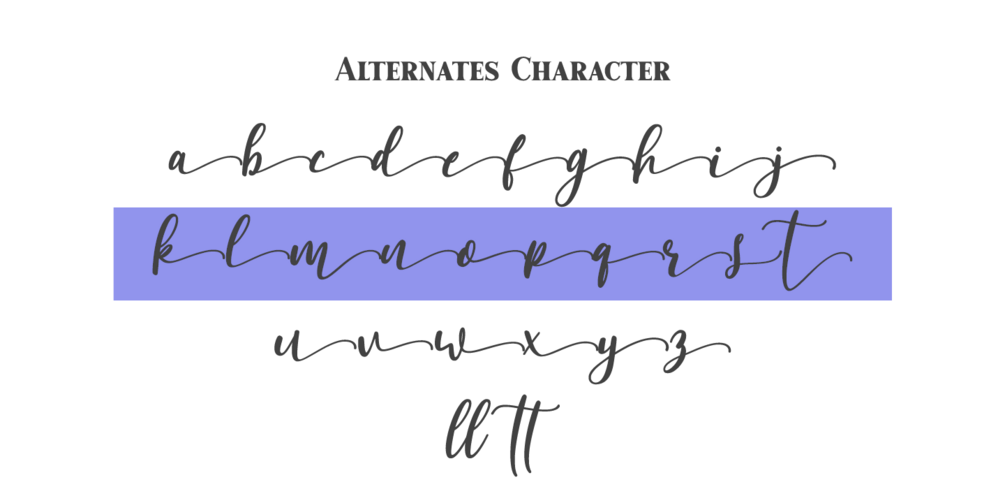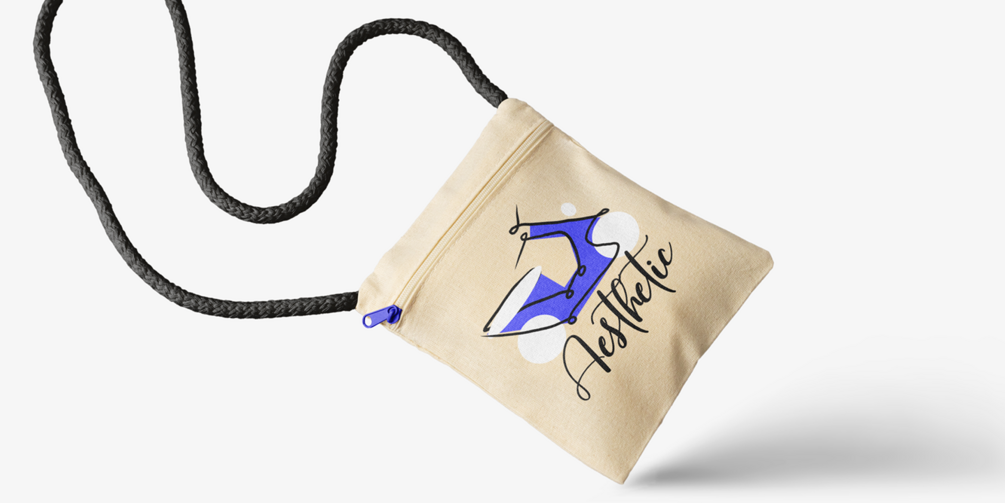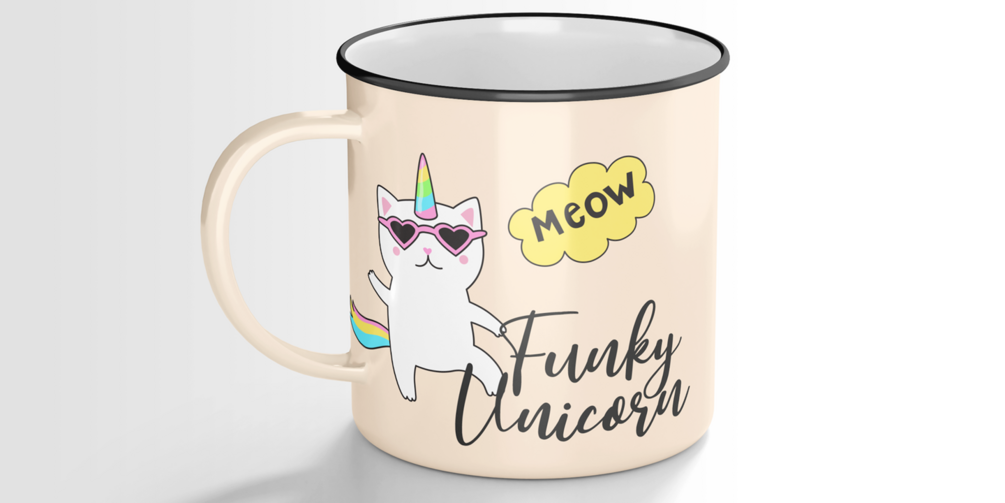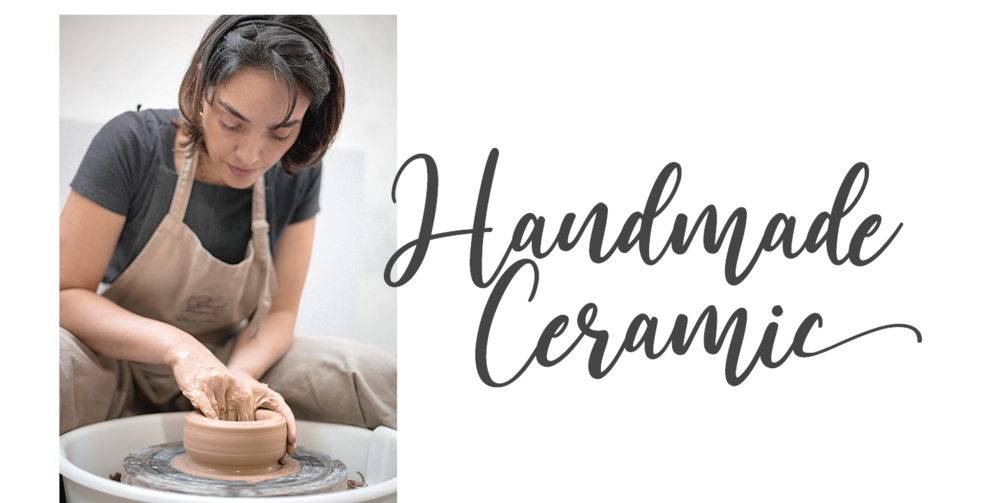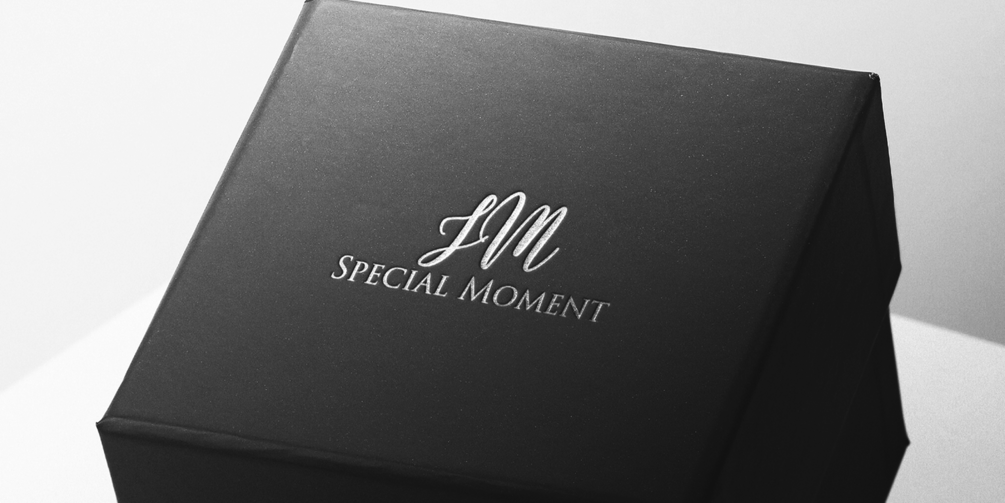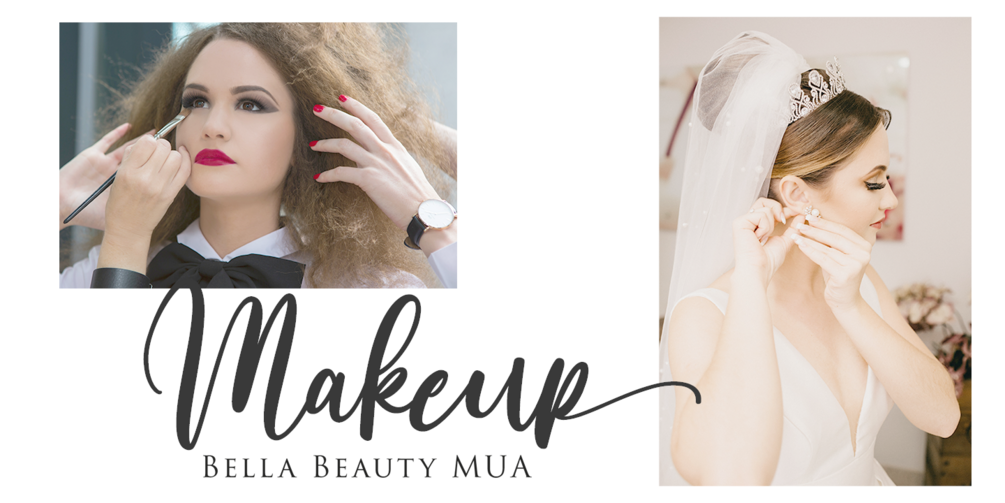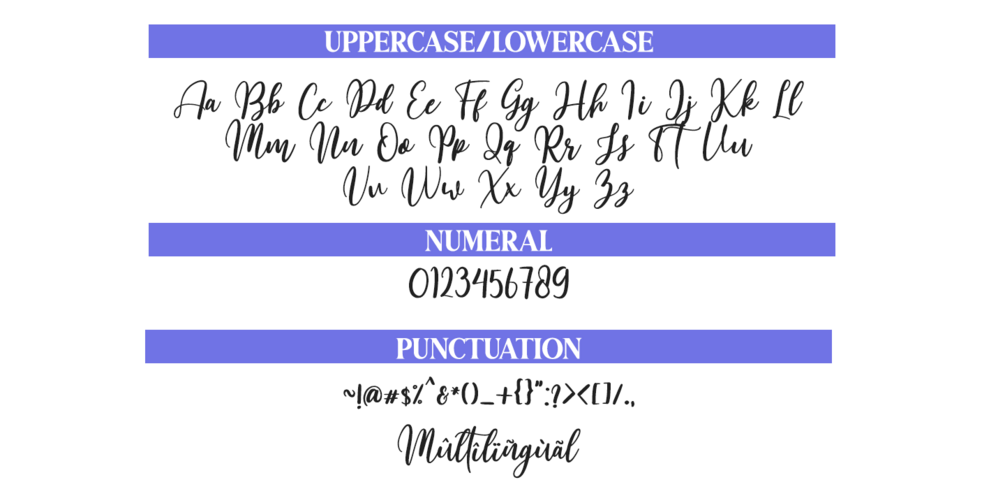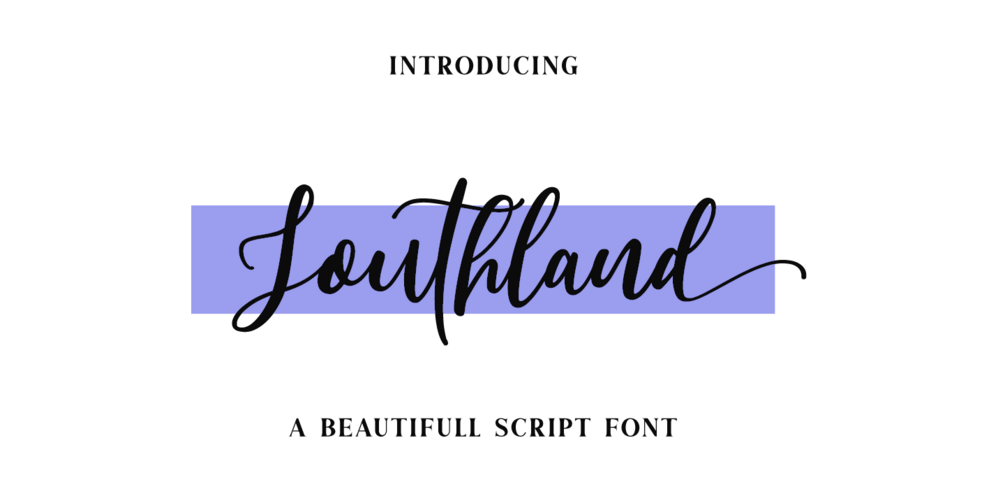
Southland
πŸ’– Southland – A Stylish Handwritten Script Font
Southland is a modern and fashionable handwritten script that brings elegance and personality to your designs.
Every curve is carefully crafted with smooth detail, making it perfect for branding, invitations, logos, quotes, packaging, and more.
Whether you’re designing for fashion, lifestyle, or creative projects, Southland adds a touch of effortless sophistication to any layout.
✨ Features:
• Multilingual Support
• Alternates & Ligatures for natural flow
Own your style with Southland β€” the perfect blend of modern charm and timeless handwriting beauty.